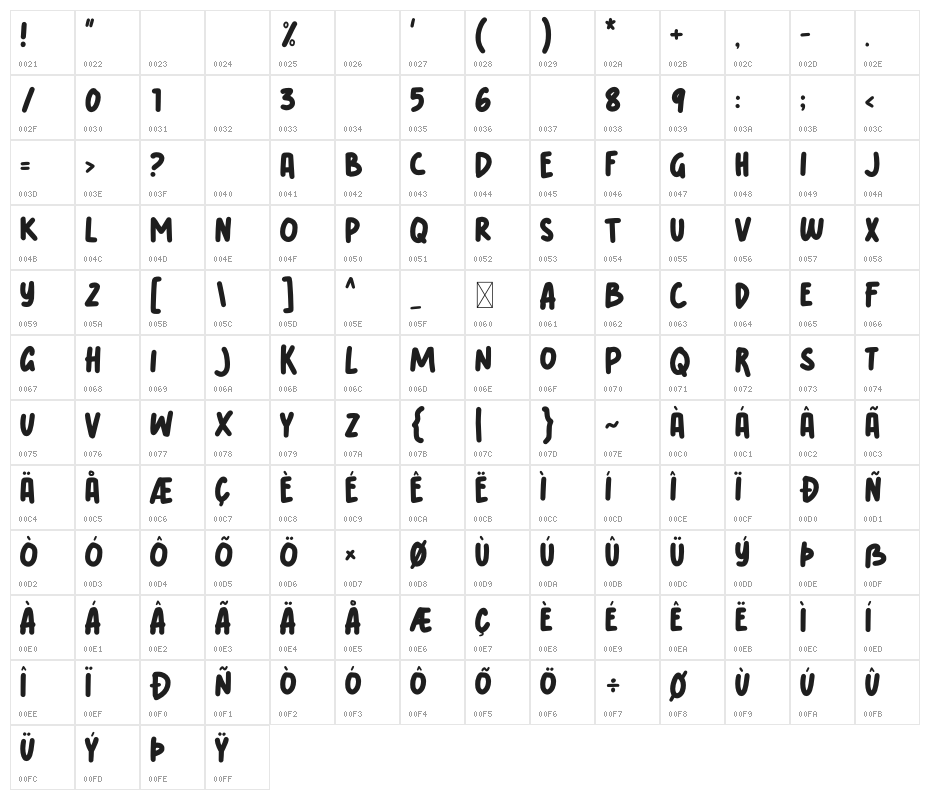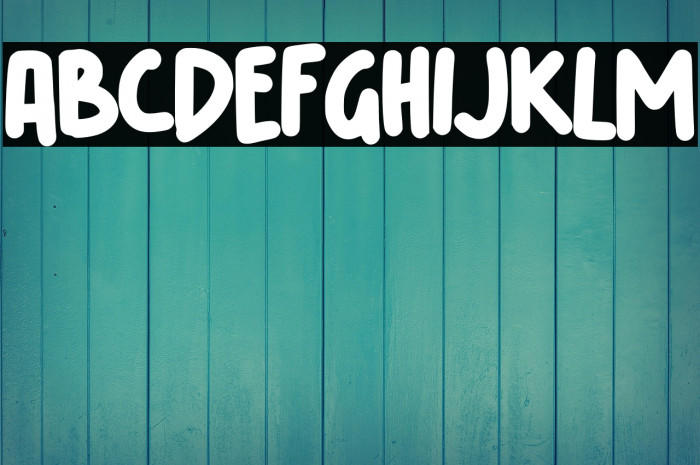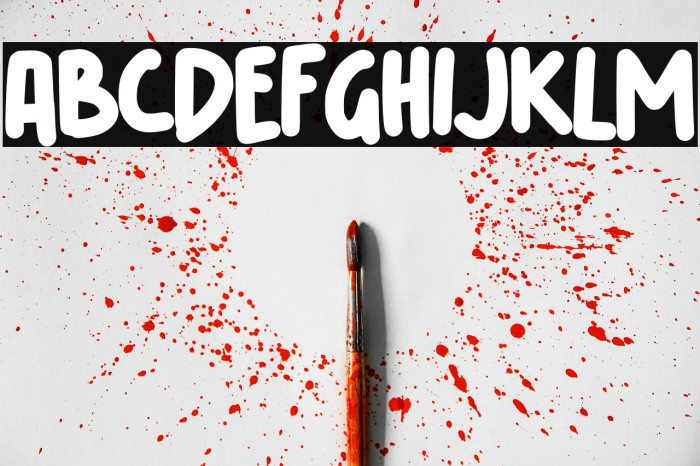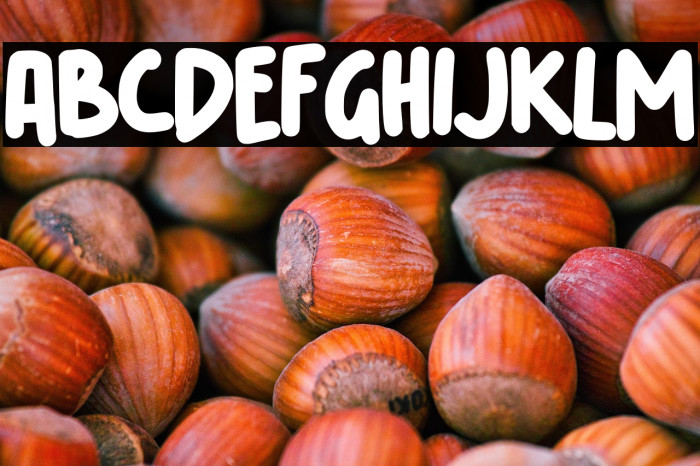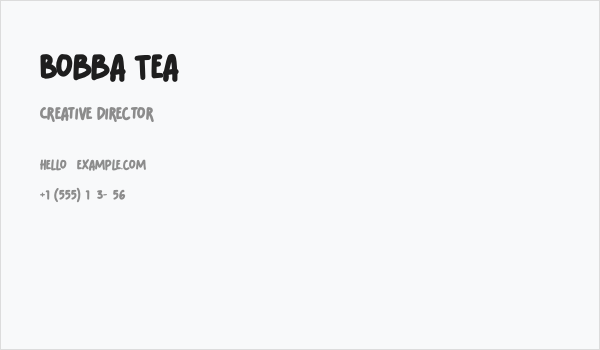
Bobba Tea Font
Bobba Tea Description
This font features a playful and bold design, characterized by its thick, rounded strokes and a slightly irregular, hand-drawn appearance. The uppercase and lowercase letters maintain a consistent weight, creating a cohesive look that is both approachable and energetic. The numbers and special characters follow the same style, ensuring uniformity across all text elements. Its boldness and unique style make it stand out, while the rounded edges add a friendly and informal touch. This font is ideal for projects that require a fun and engaging aesthetic.
| Overall Style | Playful |
| Proposed Projects | Ideal for children's books, playful branding, social media graphics, and event posters. |